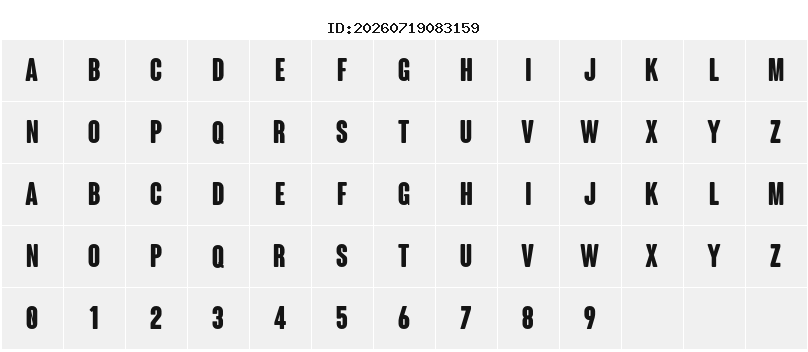
• Font Name: Coluna Rounded
• Designer: Marco Ugolini
Coluna Rounded.otf is a modern, elegant sans-serif font designed for ultimate readability and visual harmony. Perfect for branding, headlines, web design, and print materials.